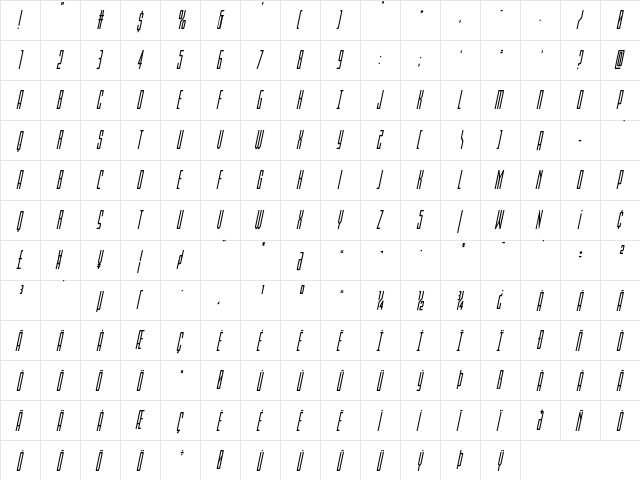
Blue Cobra Condensed Italic Regular Font Preview
Design Context for Blue Cobra Condensed Italic Typeface
Blue Cobra Condensed Italic takes a measured approach to typography — its balanced proportions and neutral character make it a reliable workhorse for both digital and print work. Its italic angle brings a sense of urgency and motion to the letterforms. Its narrow stance lets it pack a punch even in space-constrained designs.
Pro Tip: Try Blue Cobra Condensed Italic for annotation and caption copy alongside an upright companion — the contrast in angle creates a dynamic but ordered typographic system.